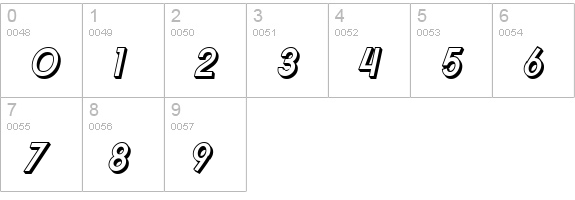
SF Buttacup Lettering Shaded Oblique Font Details
SF Buttacup Lettering Shaded Oblique is a distinctive, italic variant in the SF typeface family \xE2\x80\x94 well suited to design and typography projects.
SF Buttacup Lettering Shaded Oblique font is a visually captivating typeface that effortlessly combines elegance and playfulness. Its unique design features beautifully curved letters with a subtle shadow effect, creating a sense of depth and dimension. This versatile font is perfect for a wide range of creative projects, from eye-catching logos to bold headlines and attention-grabbing designs. Its slanted and italicized style adds a touch of dynamism and modernity, making it ideal for adding a stylish twist to any project. With its generous selection of characters, including uppercase and lowercase letters, numbers, and punctuation marks, SF Buttacup Lettering Shaded Oblique offers endless possibilities for customization and personalization. Its smooth lines and fluid curves make it easy to read and highly legible, ensuring that your message is conveyed effortlessly. One of the best features of SF Buttacup Lettering Shaded Oblique font is that it is available for free download at FontsMarket.com. This means that you can easily obtain this stunning typeface without any cost, allowing you to explore its potential and unleash your creativity without any limitations. Whether you are a professional designer, a creative enthusiast, or simply looking to add a touch of charm to your personal projects, SF Buttacup Lettering Shaded Oblique font is a must-have addition to your font library. Its elegant yet playful style will instantly elevate your designs and make them stand out from the crowd. So why wait? Download SF Buttacup Lettering Shaded Oblique font for free at FontsMarket.com and embark on a creative journey filled with endless possibilities. Let your imagination run wild and watch as this stunning typeface brings your designs to life with its timeless beauty and undeniable charm.